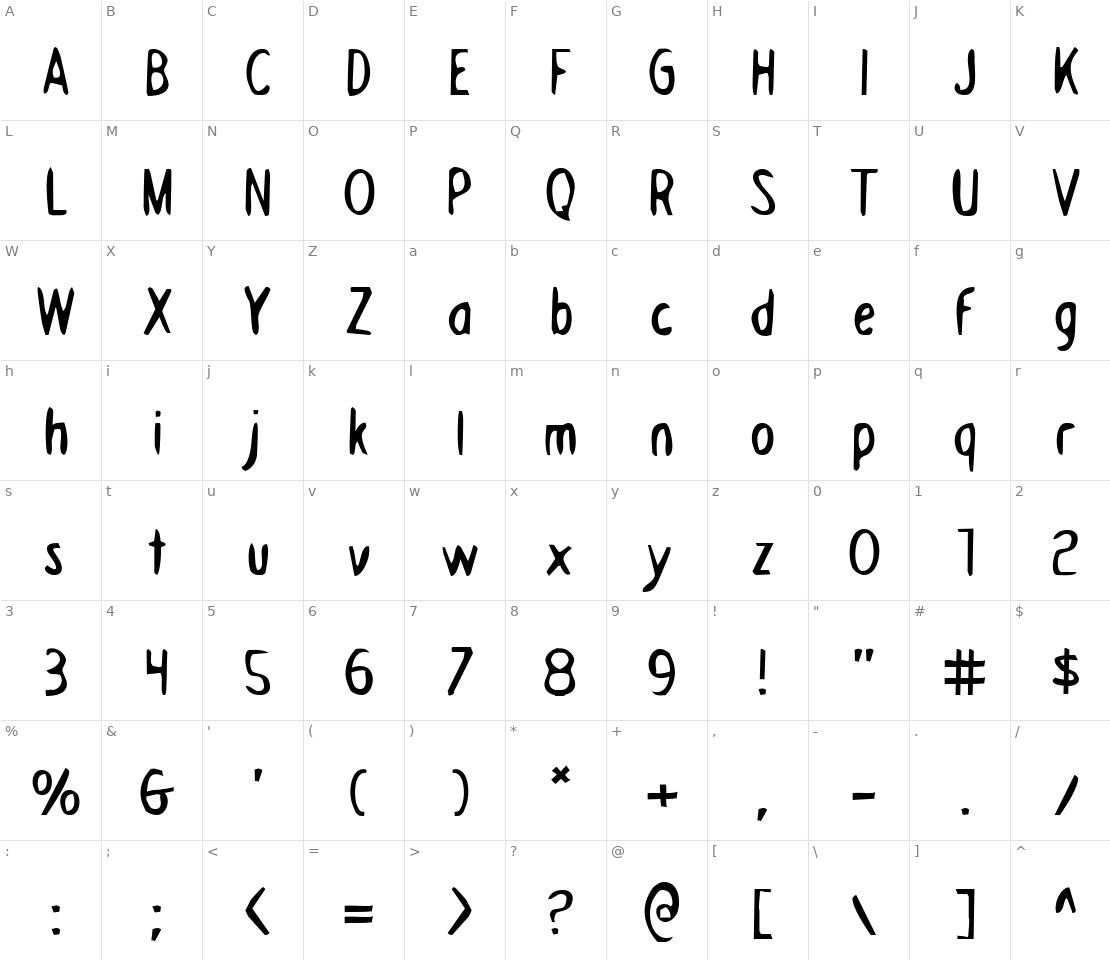
Drafting Table
Drafting Table is a bold, marker-style handwritten face from Iconian Fonts with thick, uneven strokes that feel like someone lettering quickly on a whiteboard or sketch pad. The irregular letterforms give it a loose, informal energy that works well for headlines, posters, and display work where you want something that reads as genuinely casual rather than digitally smoothed.